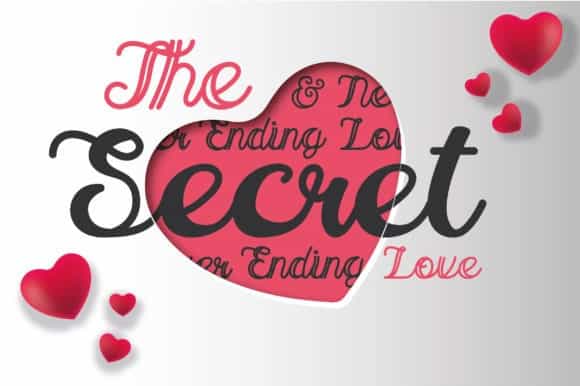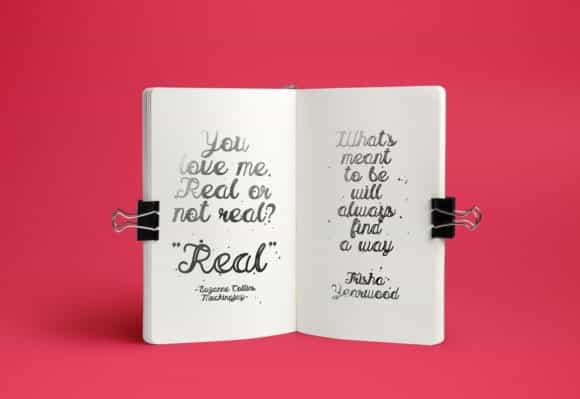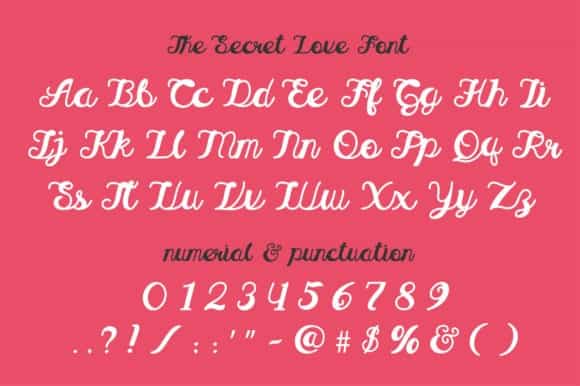
Discover The Secret Love Font, part of the Calligraphy collection—a versatile and unique font perfect for adding a personal touch to your projects. Download it for free and enjoy crafting designs with style, from invitations to social media posts. This font is available exclusively for personal use, giving you the freedom to create without limits. Unlock your creativity with The Secret Love Font today!
The Secret Love Font, is a highly versatile script typeface that has numerous alternate for every lowercase letter. This font is great for Logos and Apparel Design. It is also lovely for Prints or Merchandise, because you can use the illustrative properties of the shapes to make an art work.